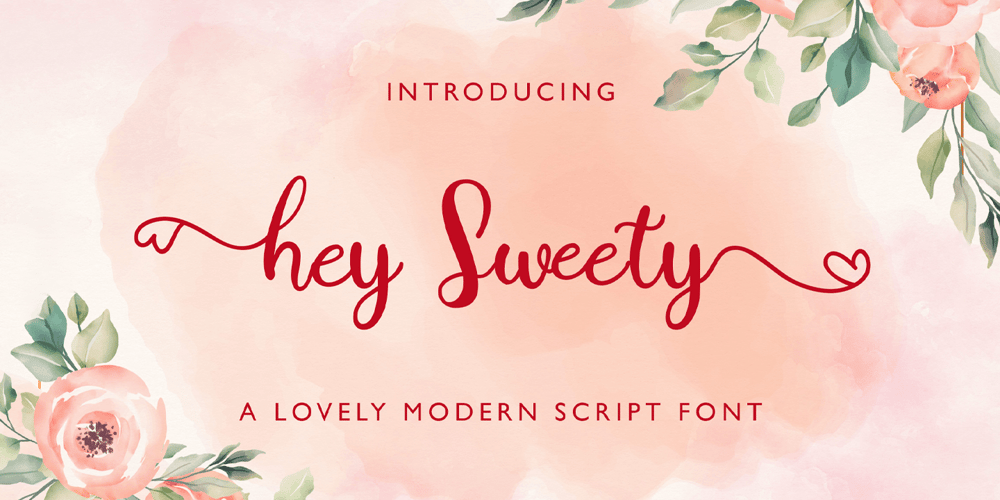
Hey Sweet Font Family was designed by Virgiawan Listanto and published by Stringlabs Creative Studio. Hey Sweet contains 1 styles and family package options. Hey Sweety is a stylish and elegant modern script font that adds a touch of sophistication and charm to any design. With its smooth, flowing letterforms and contemporary feel, Hey Sweety combines beauty with readability, making it perfect for projects that need a refined, yet playful touch.